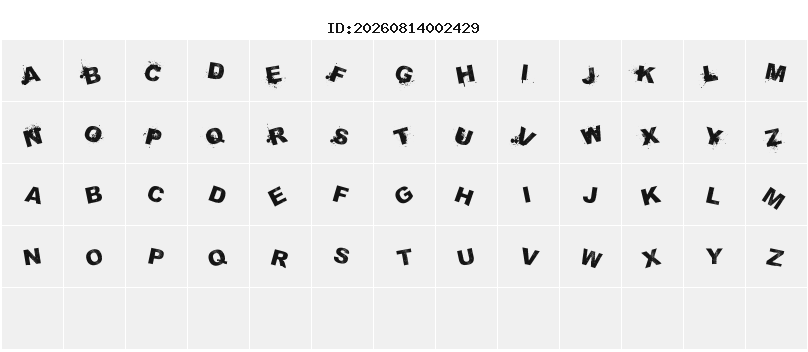
saMmiEs Sans serIf MixeD Up Preview
• Font Name: saMmiEs Sans serIf MixeD Up
• Full Font Name: saMmiEs Sans serIf MixeD Up
About saMmiEs Sans serIf MixeD Up.ttf
saMmiEs Sans serIf MixeD Up.ttf is a modern, elegant sans-serif font designed for ultimate readability and visual harmony. Perfect for branding, headlines, web design, and print materials.